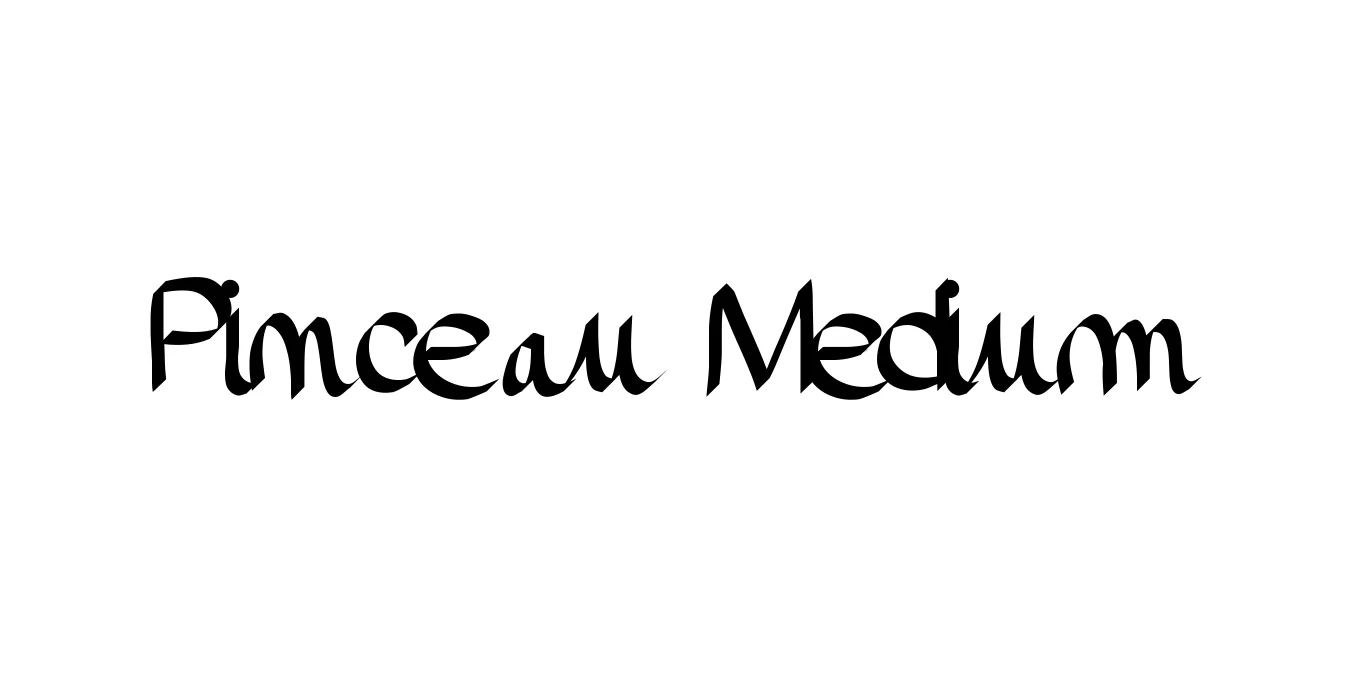
Pinceau Medium
Designed by Jean-Renaud Cuaz
Pinceau Medium is a sophisticated brush-script typeface that captures the fluid, organic strokes of a traditional paintbrush. Designed by the acclaimed Jean-Renaud Cuaz, this font family excels in translating the spontaneity of manual calligraphy into a versatile digital format. The 'Medium' weight specifically offers a refined balance, providing enough substance for visibility while maintaining the delicate tapered ends characteristic of ink-on-paper techniques.
The typeface is heavily inspired by 20th-century sign painting and French commercial artistry, making it a timeless choice for projects that require a human touch. Its rhythmic flow and varying stroke thickness create a natural sense of movement, ensuring that every word feels custom-made. Whether used for high-end fashion branding or artisanal food packaging, Pinceau Medium remains a staple for designers looking to inject elegance and personality into their layouts.
Pinceau Medium Best Uses
Ideal for creating distinctive logos and brand identities with a handcrafted feel.
Perfect for artisanal products, wine labels, and luxury cosmetic packaging.
Excellent for magazine headers, pull quotes, and feature article titles.
Great for high-impact quote graphics and creative storytelling layouts.